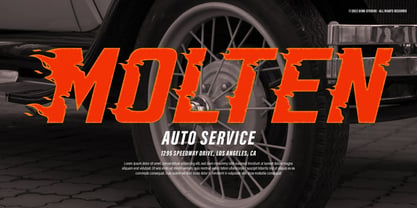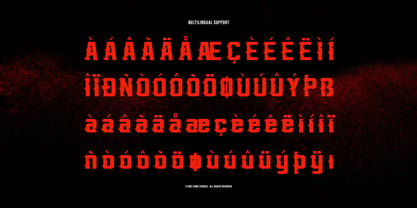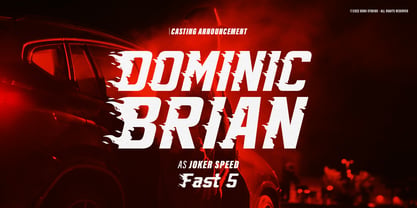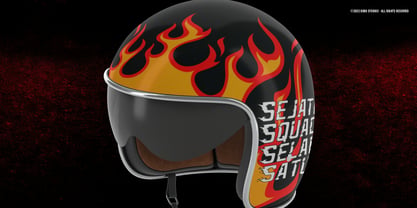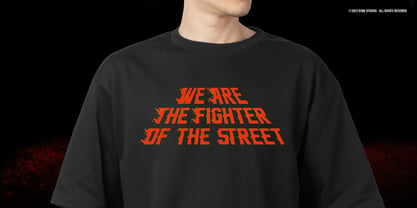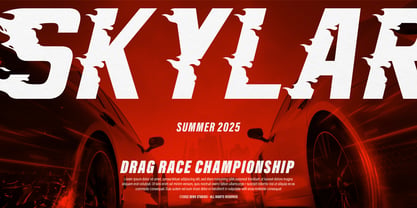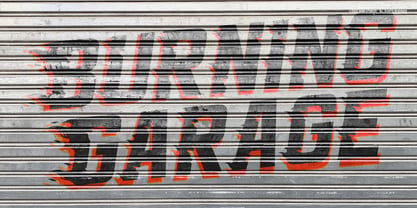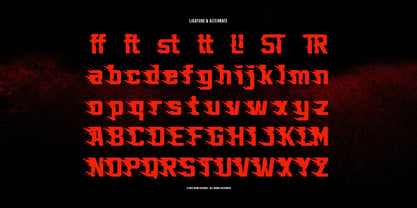
Heat Road
por Denustudio
La familia tipográfica Heat Road fue diseñada por Dede Nugraha y publicada por Denustudio. Heat Road contiene 2 estilos y opciones de paquete familiar. Más información sobre esta familia
Heat Road | Racing Fire Font, from Denustudios, suitable for any projects such as: logos, branding projects, homeware designs, product packaging, mugs, quotes, posters, shopping bags, t-shirts, book covers, name card, invitation cards, greeting cards, label, photography, watermark, special events, and all your other lovely projects that need Racing Fire Font a taste.
• Regular and Italic
• Standard glyphs
• Alternate and Ligature
• Fonts include multilingual support